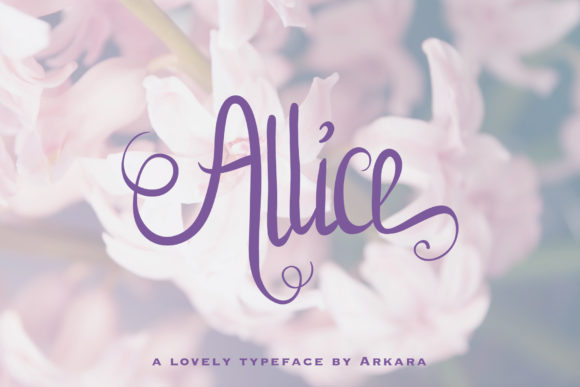
The Allice Font: A Cute and Playful Handwritten Delight
I’ll never forget the moment I stumbled upon the Allice font while working on a project for a client’s wedding invitation. I had been searching for the perfect font for hours, and just when I was about to give up, I saw Allice. Its romantic and delicate vibe instantly captured my heart, and I knew I had found the one. In this article, we’ll dive into the world of Allice, exploring its unique features, and what makes it a must-have for designers, crafters, and creative hobbyists.
A Personal Review: What I Love About Allice
So, what makes Allice so special? Here are a few things that I absolutely love about this font:
- ✨ Unique and Playful Twist: Allice has a one-of-a-kind handwritten style that’s both cute and playful, making it perfect for projects that require a personal touch.
- ✅ Romantic and Delicate Vibe: This font exudes a sense of elegance and sophistication, making it ideal for wedding invitations, baby shower announcements, and other special occasions.
- 💕 Highly Readable: Despite its playful nature, Allice is surprisingly easy to read, even at smaller font sizes.
While Allice is an amazing font, there are a few quirks to be aware of:
- 🤔 Limited Use in All-Caps: While Allice looks great in uppercase, it’s not the most visually appealing font when used exclusively in all-caps. It’s best to mix it up with lowercase letters for a more natural look.
- ⚠️ Glyph Limitations: Some users have reported that Allice has limited glyphs, which may not be ideal for projects that require a wide range of special characters.
Exploring OpenType Features: Glyphs and Stylistic Alternates
The Story Behind Allice
Allice was designed by a talented type designer who wanted to create a font that captured the essence of romance and playfulness. Inspired by classic handwritten scripts and modern digital fonts, Allice was born – a unique and charming font that’s perfect for a wide range of creative projects.
| What is Allice font best used for? | Allice is perfect for creative projects that require a personal touch, such as wedding invitations, baby announcements, and party invitations. |
| Does Allice support OpenType features? | Yes, Allice supports OpenType features, including glyphs and stylistic alternates. |